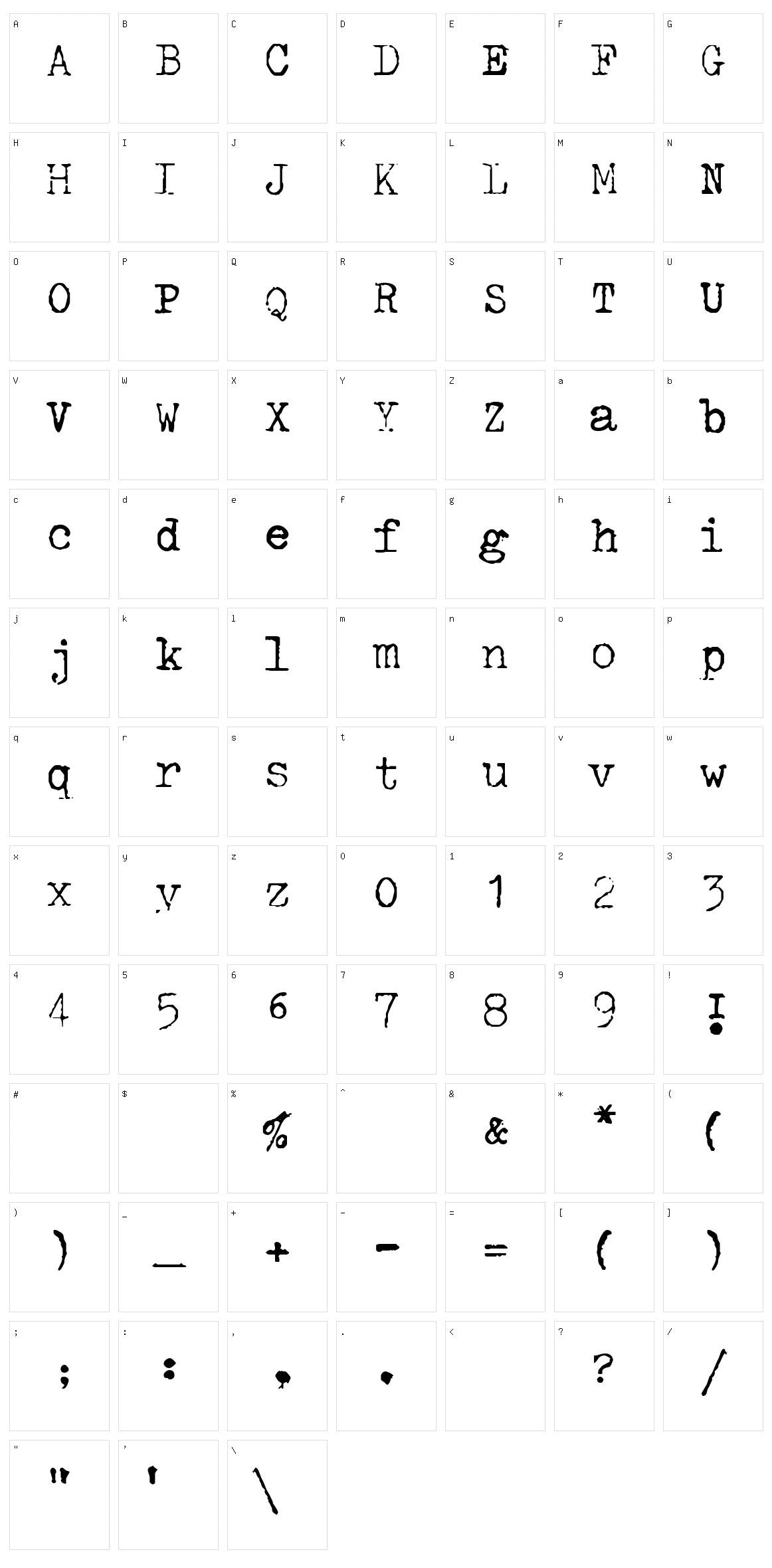
The free font GF Halda is carefully designed by GF Fonts, showcasing a thoughtful balance of creativity and usability and falls under the Typewriter font style. When you download the ZIP file, it contains only 48.78 KB of font files, making it lightweight and quick to download. Please review the license details below to understand permitted usage and distribution rights. If license information is not available, we recommend using this font for personal projects only or contacting the author directly for commercial usage permissions.